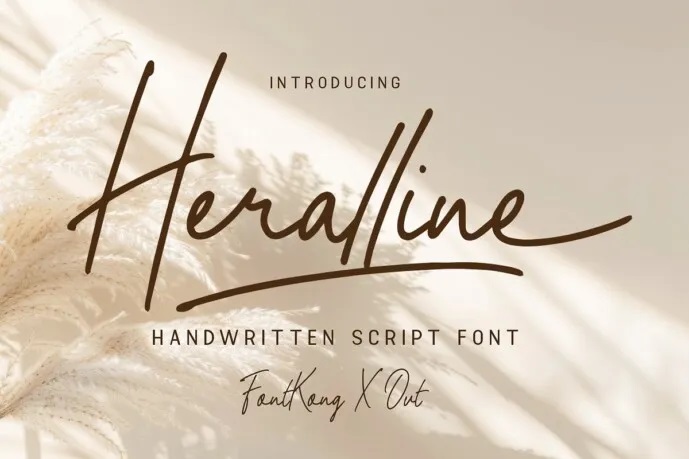
Heralline Font involves handwritten style script fonts for any type of design project that requires a personal and artistic look. Due to its fluent and curves line and shapes, it suitable for wedding invitations, branding and logo designing, greeting cards, social media postsetc. Regardless of a romantic, stylistically or even minimalistic commercial intent, Heralline adds delicate elegance to each project.
Ideally, Heralline is crafted for reading and has fresh ink forms that reflect the handwriting of the present day in natural curves. In simple words, this font suits well for both headings and for body text, and adds personality in the messages that it carries. Perfect for crafters, designers, artist or anyone who wants to give their projects a touch of the person.
Be distinct with your designs and accomplish that with Heralline. This is the font that can depict emotion and style of an imprint contributing to the creation of an impressive impression. Let Heralline be the voice behind your next storytelling, music, or spoken word piece!
Heralline Handwritten Script Font